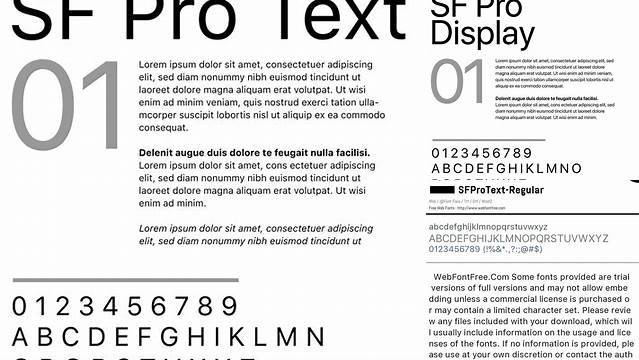
SF Pro Text Font: Free Download Guide
Why SF Pro Text is a Top Choice for Designers
Hey guys! Let's dive into why SF Pro Text has become a go-to font for so many designers and creatives out there. SF Pro Text isn't just any font; it's the system font for Apple's incredibly popular operating systems, including iOS, macOS, and watchOS. This means you've probably seen it countless times without even realizing it. Its clean, legible design is optimized for readability across a wide range of screen sizes and resolutions, making it a fantastic choice for digital interfaces. When we talk about free SF Pro Text font options, it's essential to understand its pedigree. Originally developed by Apple, it's known for its neutral yet friendly character, ensuring that content takes center stage without any typographic distractions. Whether you're crafting a mobile app, a website, or even a print document, SF Pro Text offers a versatile and professional aesthetic that's hard to beat. Its extensive family includes various weights and styles, allowing for nuanced typographic hierarchies. This adaptability is a huge plus for any project, big or small. Many designers appreciate its subtle details, like the open apertures and balanced letterforms, which contribute to its excellent legibility, even at smaller point sizes. If you're looking for a font that combines modern sensibilities with timeless clarity, SF Pro Text should definitely be on your radar. Exploring SF Pro Text dafont alternatives or looking for official sources will lead you to discover its true potential. The font's design philosophy centers around clarity and functionality, ensuring that your message is communicated effectively. It's a workhorse font that performs exceptionally well in almost any context, from body text to headings. The availability of different weights, such as light, regular, medium, bold, and black, provides designers with the flexibility needed to create visually appealing and organized layouts. This comprehensive family ensures that you can achieve a consistent typographic experience throughout your designs. For those keen on understanding typography's impact on user experience, SF Pro Text serves as a prime example of how thoughtful font design can enhance usability and aesthetic appeal. Its widespread use in the Apple ecosystem is a testament to its effectiveness and widespread adoption. So, when you're searching for that perfect, accessible, and stylish font, remember the power and versatility of SF Pro Text.
Understanding the 'SF Pro Text' Nuances
So, what makes SF Pro Text so special, and why do people specifically search for it, sometimes using terms like "dafont"? Well, it's a bit of a story. SF Pro Text is part of Apple's San Francisco (SF) font family, specifically designed for text. The other main member is SF Compact, which is optimized for smaller screens and tight spaces, like on the Apple Watch. SF Pro Text, on the other hand, is intended for larger sizes, typically above 19 points, ensuring excellent legibility and clarity in interfaces and documents. When you're looking for free SF Pro Text fonts, it's important to be aware of licensing. While Apple makes SF Pro Text available for developers to use in their apps on Apple platforms, distributing it freely elsewhere isn't always straightforward. This often leads people to search on sites like dafont, looking for what they perceive as free versions. However, many fonts found on unofficial sites might be unofficial releases, modified, or even outright imitations. It's always best to stick to official sources or reputable foundries when possible to ensure you're using legitimate and high-quality typefaces. Understanding these nuances helps you appreciate why people are searching for specific font names like SF Pro Text. They recognize its quality, its association with modern design, and its fantastic readability. It's a font that communicates professionalism and a clean aesthetic. The subtle differences between SF Pro Text and SF Compact highlight Apple's meticulous approach to typography, catering to different contexts and ensuring optimal viewing experiences. For designers, having access to a font family that offers such specific optimizations can be incredibly beneficial. It allows for greater control over the visual presentation of information, ensuring that text remains legible and appealing across various applications. When you download or use a font, understanding its intended purpose and licensing is crucial for avoiding legal issues and ensuring the integrity of your design work. Therefore, while the allure of finding a font like SF Pro Text on a free font site is understandable, it's always wise to verify the source and licensing. This ensures you're not only getting the genuine article but also respecting the original designers and their work. The search for SF Pro Text dafont often stems from a desire to replicate that clean, modern Apple aesthetic in non-Apple environments or personal projects where obtaining official licenses might be complex. It highlights the font's desirability and its impact on contemporary design trends.
Discovering 'SF Pro Text' Equivalents and Alternatives
Alright guys, so you're on the hunt for that clean, crisp look of SF Pro Text, but maybe you're running into licensing issues or just want to explore other options. It happens! Sometimes, finding the exact free SF Pro Text font you want legally can be a bit of a maze, especially if you're working outside the Apple ecosystem or on projects where official distribution isn't feasible. But don't sweat it! There are some absolutely stellar alternatives out there that capture that same modern, highly readable vibe. Think of fonts that prioritize clarity, have a slightly geometric feel, and offer a good range of weights for versatile use. One fantastic alternative that often comes up is Roboto. Developed by Google, Roboto is a neo-grotesque sans-serif that balances mechanical and geometric forms. It's incredibly versatile, works well on screens, and is available for free through Google Fonts. Another strong contender is Open Sans. This is a humanist sans-serif, meaning it has a slightly more open and friendly feel, but it's still super clean and professional. Like Roboto, it's a Google Font, so you get a massive family of weights and styles, all free to use. If you're leaning towards something with a bit more character but still maintaining that contemporary feel, Lato is a great option. It’s a sans-serif font that feels warm and stable, making it excellent for both headlines and body text. You can find it on Google Fonts too. For those who really dig the slightly technical, precise look, Montserrat could be your jam. Inspired by old posters and signs in the Montserrat neighborhood of Buenos Aires, it has a geometric foundation with a modern twist. It’s another freebie from Google Fonts. When you're searching for SF Pro Text dafont styles, you might be looking for that particular Apple polish. While these alternatives won't be identical clones, they offer similar design principles: excellent legibility, a broad spectrum of weights, and a modern, clean aesthetic suitable for UI design, web, and more. Many designers find that using a combination of these high-quality, free fonts can achieve a professional look without breaking the bank or encountering licensing headaches. Remember to check the specific licenses for each font, but most found on Google Fonts are very permissive. So, explore these options, experiment with different weights, and see which one best fits the vibe you're going for. You might just find a new favorite that perfectly complements your design projects! It's all about finding the right tool for the job, and thankfully, there are plenty of great, free options available if you know where to look.
The Evolution of System Fonts: SF Pro's Place
Let's chat about how fonts have evolved, especially the ones we see every day on our devices. SF Pro Text represents a significant milestone in the world of system fonts. Think back to the early days of digital typography – fonts were often clunky, hard to read on low-resolution screens, and limited in variety. Then came innovations like TrueType and OpenType, paving the way for more sophisticated designs. Apple, being a pioneer in personal computing, has always placed a strong emphasis on typography. Remember Lucida Grande on older Macs? Or Helvetica Neue becoming the default on iOS? Each system font aimed to reflect the era's design sensibilities and technological capabilities. SF Pro Text, launched in 2015 alongside the Apple Watch, was a deliberate move to create a unified, modern, and highly functional typeface family across all of Apple's platforms. It replaced Helvetica Neue as the primary UI font. Its design was meticulously crafted to perform exceptionally well at various sizes and resolutions, hence the distinction between SF Pro Text (for smaller, text-heavy scenarios) and SF Pro Display (for larger, more prominent headings). This attention to detail is what makes people seek out free SF Pro Text font versions or alternatives, even if they're not using Apple devices. They recognize the quality and the modern aesthetic it brings. The evolution from older, less optimized fonts to the highly engineered SF Pro family showcases a broader trend in digital design: the increasing importance of readability, scalability, and a clean, unobtrusive user experience. When you search for SF Pro Text dafont, you're tapping into this desire for cutting-edge, functional typography. The SF font family, including SF Pro Text, is a testament to how far system fonts have come – from basic legibility to sophisticated tools that enhance user interaction and brand identity. Its success lies in its technical precision married with a pleasing aesthetic, making it a benchmark for interface typography. It's not just a font; it's a key component of the user experience, designed to be seen everywhere from a tiny watch screen to a large iMac display, seamlessly adapting and maintaining its clarity. This adaptability and refined design are why it remains a highly sought-after typeface in the design community.
The Design Philosophy Behind SF Pro
Let's geek out for a second on the why behind SF Pro Text. Apple didn't just create a font; they engineered an experience. The design philosophy driving the SF Pro family is all about clarity, legibility, and adaptability. It's a typeface designed to be functional first and foremost, especially in the context of user interfaces where information needs to be communicated quickly and accurately. SF Pro Text specifically is tuned for smaller text sizes (under 19 points) where detail and crispness are paramount. Its counterpart, SF Pro Display, is optimized for larger sizes, offering slightly different proportions for maximum impact. What makes SF Pro so appealing? Its neutral yet friendly character. It doesn't shout for attention; instead, it lets your content shine. This is achieved through carefully balanced letterforms, open apertures (the openings in letters like 'c' or 'e'), and a consistent stroke weight that ensures readability even on lower-resolution screens or at a glance. The subtle details matter: the way the 'a' is constructed, the curve of the 's', the spacing between letters – all meticulously considered. This level of refinement is why designers often search for free SF Pro Text font options, trying to replicate that polished Apple feel in their own projects. They recognize the quality and the sophisticated design language it represents. When people search SF Pro Text dafont, they're often looking for that specific clean, modern, and highly functional aesthetic that SF Pro embodies. It's a typeface that feels both contemporary and timeless, designed to work seamlessly across a vast range of devices and contexts. The underlying principle is human-centered design: the font should serve the user, making their interaction with the device or application as intuitive and pleasant as possible. It’s a font that aims to disappear, allowing the message to take center stage, yet it does so with a distinct personality that contributes to Apple's overall brand identity. This thoughtful approach to typography is a cornerstone of Apple's product design, and SF Pro Text is its current flagship.
How SF Pro Text Enhances User Interfaces
Alright, let's talk about how SF Pro Text actually makes your digital life better, especially in apps and websites. When designers choose a font for a user interface (UI), it's not just about making things look pretty; it's about making them work. SF Pro Text is a superstar in this arena because it's specifically engineered for screen readability. Think about it: you're scrolling through Instagram, checking your email, or browsing a news site. You want the text to be instantly clear, easy to scan, and comfortable to read, even if you're squinting a bit in bright sunlight. That's where SF Pro Text shines. Its clean lines, balanced letterforms, and optimized spacing ensure that characters don't blur together, even at smaller sizes. This reduces eye strain and makes the entire experience more pleasant. This is a major reason why people hunt for free SF Pro Text font downloads or similar alternatives – they want that same level of polish and usability in their own digital creations. A well-chosen UI font like SF Pro Text contributes significantly to the overall user experience (UX). It helps establish a clear visual hierarchy, guiding the user's eye through the information. Headings stand out, body text is legible, and interactive elements are easily identifiable. When you see "SF Pro Text dafont" in search results, it often signifies a designer trying to achieve that crisp, intuitive Apple-like interface in their own work. The font's versatility across different weights (light, regular, bold, etc.) allows designers to create distinct typographic styles for different elements, improving navigation and comprehension. For example, using a bold weight for buttons or key calls-to-action ensures they grab attention. Conversely, a lighter weight for descriptive text keeps the interface from feeling cluttered. Ultimately, SF Pro Text enhances UIs by prioritizing the user's need for clear, accessible, and visually comfortable information delivery. It’s a font designed not just to be seen, but to be used effortlessly, making it a fundamental component of modern, user-centric design.
Comparing SF Pro Text to Other System Fonts
Let's put SF Pro Text head-to-head with some other fonts you might know, especially other system fonts. It helps to understand why SF Pro has gained such traction. Historically, system fonts were often chosen for technical reasons – they were widely available or rendered well on specific hardware. Think of Times New Roman on Windows PCs or Lucida Grande on older Macs. These were functional, but perhaps not always the most aesthetically pleasing or optimized for modern, high-resolution displays. When Apple introduced SF Pro Text, it marked a shift towards a more design-conscious and performance-driven approach. Compared to, say, the ubiquitous Arial or Helvetica, SF Pro Text offers a more contemporary feel and is specifically engineered for screen rendering across Apple's diverse hardware. Helvetica, while a classic, can sometimes feel a bit dated or lack the subtle refinements needed for optimal on-screen legibility at smaller sizes. Google's Roboto, often seen as an Android counterpart, shares SF Pro's goal of being a highly legible, versatile UI font. Roboto has a slightly more geometric structure, whereas SF Pro Text feels a bit more organic and refined, particularly in its finer details. Both are excellent choices, but they have distinct personalities. Finding a free SF Pro Text font is appealing because it offers that distinct Apple polish, which differs from Roboto's Google-centric vibe. What about older Apple fonts like Helvetica Neue? SF Pro Text generally offers better legibility at small sizes and a more modern aesthetic that aligns better with current design trends. It was designed to address limitations perceived in Helvetica Neue for UI use. So, when you search SF Pro Text dafont, you're essentially looking for a font that embodies the pinnacle of Apple's typographic engineering for everyday use – a blend of technical precision, aesthetic appeal, and superb screen performance. It stands out because it's not just a generic sans-serif; it's a carefully crafted system font designed to enhance the user experience across millions of devices. Its widespread adoption and the demand for its look highlight its success in this competitive landscape of system typefaces.
The Impact of SF Pro Text on Web Design
Hey web designers! Let's talk about how SF Pro Text has subtly, yet significantly, influenced the look and feel of the modern web. Even though it's primarily Apple's system font, its clean aesthetic and excellent legibility have made it a highly desirable typeface. When developers and designers can't use the official SF Pro Text (due to licensing for cross-platform use), they often look for similar fonts or try to replicate its characteristics. This has driven trends towards minimalist, highly readable sans-serif designs on the web. SF Pro Text embodies a certain 'Apple polish' – a sense of quality, clarity, and modern sophistication. This is exactly the vibe many websites aim for. Think about tech blogs, portfolio sites, and even e-commerce platforms; they often favor typefaces that are clean, unobtrusive, and render beautifully on all devices. The search for a free SF Pro Text font often stems from this desire to bring that specific aesthetic to a web project without incurring licensing costs. While using SF Pro Text directly on the web requires careful implementation (like using Apple's web font format or ensuring users have it installed), its influence is undeniable. Designers might choose alternatives like Roboto, Open Sans, or Inter, which share SF Pro's commitment to screen readability and a clean, contemporary look. These fonts provide a similar user experience – text that's easy on the eyes, even during extended reading sessions. The principles behind SF Pro Text – clarity at small sizes, balanced letterforms, and a professional yet approachable tone – are now standard expectations for many web interfaces. So, even if your website isn't technically using SF Pro Text, the design choices it inspired are likely present. When you see search terms like "SF Pro Text dafont," it reflects the font's aspirational quality in the web design world. It represents a benchmark for clean, effective, and modern typography that elevates the user's interaction with digital content. Its legacy is not just in the devices it inhabits but in the broader design trends it has helped to shape across the internet.
Exploring the 'SF Pro Display' vs 'SF Pro Text' Difference
Let's clear up a common point of confusion, guys: the difference between SF Pro Text and SF Pro Display. While both are part of Apple's San Francisco font family, they're actually designed with different use cases in mind, optimizing for specific sizes. Think of it like having different tools for different jobs. SF Pro Text is your go-to for smaller type sizes, typically below 19 points. When you're reading body copy in an app, browsing a website on your phone, or looking at text messages, you're likely seeing SF Pro Text. Its design is optimized for maximum legibility at these smaller dimensions. This means slightly tighter spacing, more defined letterforms, and features that prevent aliasing or blurriness on screen. On the other hand, SF Pro Display is intended for larger type sizes, generally 20 points and up. You'll see it used for headlines, large titles, or any text that needs to make a bold statement. SF Pro Display has slightly different proportions – often a bit more spacing between letters and perhaps more pronounced features – to ensure it looks clear and impactful when magnified. This distinction is why simply searching for a free SF Pro Text font might not give you the optimal result if you intend to use it for large headlines, and vice-versa. Apple carefully calibrated these two variants to ensure the best possible reading experience across their entire product line. So, when you encounter terms like "SF Pro Text dafont," remember that people might be seeking the general 'SF Pro' aesthetic, but understanding these nuances can help you choose the right variant (or a suitable alternative) for your specific design needs. If you need a font for general interface text, SF Pro Text is usually the choice. If you're designing prominent titles or logos, SF Pro Display might be more appropriate. This intelligent differentiation is a hallmark of Apple's typographic system, ensuring that text always looks its best, no matter the context or size.
Accessibility and SF Pro Text
Let's talk about something super important: accessibility. And how SF Pro Text plays a big role in making digital content usable for everyone. Accessibility in design means creating products and experiences that people with disabilities can use. When it comes to typography, this boils down to making text clear, readable, and easy to understand. SF Pro Text is fantastic in this regard. As Apple's UI font, it's been designed with accessibility as a core principle. Its highly legible letterforms, open apertures, and optimized spacing at smaller sizes mean that users with visual impairments, dyslexia, or other reading challenges can engage with content more easily. For instance, the distinct shapes of letters like 'I', 'l', and '1', or 'O' and '0', are carefully differentiated to avoid confusion. This attention to detail is crucial. When people search for a free SF Pro Text font, they're often drawn to its perceived clarity and modern aesthetic, which inherently supports better readability. This translates directly into improved accessibility. A user who struggles with dense or poorly spaced text will find SF Pro Text much more comfortable to read. This benefits everyone, not just those with diagnosed visual impairments. In a world where we're constantly bombarded with information on screens, a font that prioritizes readability reduces cognitive load and makes the experience more inclusive. Therefore, the design choices made in SF Pro Text – its clarity, its structure, its performance at various sizes – directly contribute to making technology more accessible. It's a prime example of how thoughtful typography isn't just about aesthetics; it's about ensuring that information is available and understandable to the widest possible audience. This focus on legibility makes SF Pro Text a benchmark for accessible interface design, proving that good design is inherently inclusive design. When you aim for clarity, you inherently improve accessibility for all users.
Font Pairing with SF Pro Text
So you've decided to use SF Pro Text, or perhaps a close alternative, in your design. Awesome choice! Now, how do you pair it effectively to make your whole design pop? That's the million-dollar question, right? SF Pro Text is a highly versatile, neutral sans-serif. Its strength lies in its clarity and modern feel. This means it plays well with a variety of other typefaces, but you need to choose companions wisely to maintain a cohesive and professional look. For body text, if SF Pro Text is your primary font, you might want to pair it with a serif font for contrast, especially in longer articles or print design. Think of a classic like Garamond, Merriweather, or even Lora. These serifs offer a traditional counterpoint to SF Pro's modern simplicity, creating a sophisticated typographic hierarchy. Ensure the serif you choose also has good legibility at body text sizes. For headings, you have a few options. You could stick within the SF Pro family and use SF Pro Display (if available and licensed appropriately) or a bolder weight of SF Pro Text itself. Alternatively, you could go for a contrasting sans-serif. Maybe something with a bit more personality, like Montserrat for a geometric feel, or Oswald for a condensed, impactful look. Just ensure it doesn't clash with SF Pro Text's clean lines. If you're looking for free SF Pro Text font alternatives, the same pairing principles apply. Pair Roboto with Merriweather, or Open Sans with Lora. The key is to create contrast while maintaining harmony. Avoid pairing SF Pro Text with another highly neutral, geometric sans-serif unless you're aiming for a very specific, minimalist aesthetic, as the result might be monotonous. The goal is usually to establish a clear visual distinction between different types of content (like headlines vs. body text) without creating chaos. Strong tip: When looking for SF Pro Text dafont options or similar free fonts, consider the font's overall character. Is it friendly? Technical? Formal? Choose a pairing that complements, rather than competes with, SF Pro Text's inherent clarity and modern sensibility. Experimentation is key, but always keep your project's goals and audience in mind.
The Future of System Fonts like SF Pro Text
What's next for typefaces like SF Pro Text? It's an exciting question, guys, because the way we interact with text on screens is constantly evolving. SF Pro Text represents a high point in current system font design – optimized for legibility, usability, and aesthetic appeal across a multitude of devices. But technology never stands still, right? We're seeing trends like variable fonts becoming more mainstream. Variable fonts allow a single font file to contain many variations (like weight, width, and slant), offering incredible flexibility for designers and potentially improving performance. We might see future system fonts built with variable font technology at their core. There's also a growing emphasis on color fonts and variable color within typefaces, which could lead to more dynamic and expressive interfaces. AI and machine learning are also starting to play a role in font generation and optimization, potentially leading to fonts that can adapt in real-time to user preferences or environmental conditions (like lighting). While the demand for free SF Pro Text font downloads indicates a desire for its current quality, the future likely holds even more sophisticated typographic tools. Apple, Google, and other tech giants will continue to innovate, pushing the boundaries of what system fonts can do. Expect future fonts to be even more adaptive, perhaps offering dynamic adjustments for different screen resolutions, user needs (like high contrast modes), or even contextual styling. The core principles of legibility and usability that SF Pro Text champions will undoubtedly remain crucial. However, the methods of achieving these goals will likely become more advanced. The quest for the perfect digital typeface is ongoing, and fonts like SF Pro Text are important stepping stones in that journey. They set a high bar for clarity and user experience, influencing the direction of typographic innovation for years to come. So, while SF Pro Text is current king, keep an eye on how technology continues to shape the letters we read every day.
When to Avoid Using SF Pro Text (and its Alternatives)
Okay, let's flip the script. While SF Pro Text is an amazing font, it's not always the perfect fit for every single project. Sometimes, you actually need to steer clear, even if you've found a free SF Pro Text font download. Reason 1: Licensing restrictions. As we've hammered home, if you need a font for a commercial project outside of Apple's intended ecosystem, the official SF Pro Text might be a legal minefield. Relying on unofficial downloads from places like dafont for commercial work is risky. Reason 2: Brand identity. SF Pro Text is Apple's font. Using it extensively might make your project feel too much like an Apple product, potentially diluting your unique brand identity. If you want your brand to stand out with a distinct personality, a more unique or custom typeface might be necessary. Reason 3: Specific aesthetic needs. SF Pro Text is a neutral, highly functional sans-serif. If your project calls for something with a lot of flair, a strong historical feel (like a classic serif for a vintage brand), or a highly decorative style, SF Pro Text will likely fall flat. Its strength is its subtlety; if you need boldness and overt character, look elsewhere. Reason 4: Technical limitations. While excellent on screens, if you're doing heavy-duty print design, especially for things like magazines or books that require very specific typographic control, you might find that professional print-focused typefaces offer more features and better performance. Alternatives and their pitfalls: Even when using alternatives like Roboto or Open Sans, consider if they truly fit. Are they too common, making your design blend in? Do they have the specific weights or styles you need? Sometimes, the lack of a specific characteristic in these widely available fonts can be a reason to look for something more specialized. The bottom line: SF Pro Text and its free-lookalikes are fantastic for UI, general digital text, and projects aiming for that clean, modern Apple aesthetic. But if licensing is a concern, brand distinctiveness is key, or your project demands a very specific stylistic or technical typographic treatment, it's time to explore other avenues. Knowing when not to use a font is just as important as knowing when to use it.
The "dafont" Experience: Free Fonts Galore!
Let's talk about dafont, the elephant in the room for many font searches, especially when terms like "SF Pro Text dafont" come up. This website is legendary in the design community, acting as a massive, easily accessible repository for thousands upon thousands of fonts. What's the big draw? Free fonts. For personal use, dafont is an absolute goldmine. You can find everything from quirky, hand-drawn scripts to classic serifs and modern sans-serifs. It’s the first place many beginner designers and hobbyists turn to when they need a font that looks good without costing anything. The user interface is straightforward: browse by category, check out the latest additions, or search by name. The reward of diving into dafont is the sheer variety and the potential to discover hidden gems. You might find a font that perfectly captures the vibe you're going for, saving you money and time. However, as we've touched upon, the experience isn't always straightforward, particularly with fonts like SF Pro Text. The caveat: Dafont hosts fonts submitted by individual creators. While many are legitimate and clearly state their licensing (usually for personal use only), the accuracy and legality of fonts mimicking popular typefaces can be questionable. You might download something labeled 'SF Pro Text' that is actually an unofficial remake, potentially with missing characters, incorrect kerning, or unclear commercial usage rights. This is the inherent risk of the dafont experience – amazing variety comes with the responsibility of vetting the font's quality and license. For SF Pro Text specifically, Apple's own distribution channels are the official and safest route for developers. Relying on dafont for it, or any commercial project, is a gamble. But for personal projects, exploring dafont can be a fun and rewarding way to experiment with different typographic styles and find unique looks without breaking the bank. Just remember to always read the descriptions and respect the creators' intended use.
Customization and Weights in SF Pro Text Family
One of the things that makes SF Pro Text such a powerful tool is its extensive family and the customization it offers. It’s not just a single font; it’s a whole system designed to cover a wide range of typographic needs. SF Pro Text itself comes in a variety of weights: Thin, Light, Regular, Medium, Semibold, Bold, Heavy, and Black. That’s a serious range, guys! This allows designers to create sophisticated typographic hierarchies within their interfaces and designs. You can use 'Light' for subtle captions, 'Regular' for main body text, and 'Bold' or 'Heavy' for important headings or calls to action, all while maintaining a consistent typographic voice. Beyond just weights, the SF Pro family includes stylistic alternates and other OpenType features that add subtle refinements. While finding free SF Pro Text font versions might mean you don't get the full suite of these advanced features, the core weights are often present. The real power comes when you have access to the full family, as intended by Apple. This allows for nuanced adjustments that enhance both aesthetics and readability. For instance, you might use a slightly heavier weight for text on a dark background to improve contrast. Or perhaps use a lighter weight for secondary information to make it recede visually. The availability of these multiple weights and styles within the SF Pro Text family is a testament to its design as a comprehensive system rather than just a single typeface. It empowers designers with the control needed to craft polished, professional results. When people search for SF Pro Text dafont or similar free options, they're often trying to access this range of weights to achieve a similar level of design flexibility. Even if you're using an alternative, looking for a font family with a similar breadth of weights (like Roboto or Open Sans) is key to achieving that professional polish and typographic control.
The Psychology of Fonts: SF Pro Text's Impact
Ever wonder why certain fonts just feel right? It’s not just about looks; it’s about psychology. SF Pro Text, with its clean, straightforward design, taps into some interesting psychological responses. Clarity and Trust: Because SF Pro Text is highly legible and associated with Apple's polished ecosystem, it often subconsciously signals trustworthiness and reliability. When users see clean, well-rendered text, it can create a sense of professionalism and competence for the brand or app using it. This is a huge win for any designer. Neutrality and Focus: SF Pro Text is intentionally neutral. It doesn't have strong eccentricities that might distract the reader. This neutrality allows users to focus on the content itself, reducing cognitive load. Psychologically, this makes for a more comfortable and efficient user experience. People feel less overwhelmed when the interface 'gets out of the way'. Modernity and Innovation: As a relatively new system font from a leading tech company, SF Pro Text is associated with modernity and forward-thinking design. Using it, or fonts that emulate its style (which is why people search for free SF Pro Text font options), can lend a project a contemporary edge. Friendliness: Despite its neutrality, the slightly rounded terminals and open letterforms give SF Pro Text a subtle friendliness. It's approachable without being casual. This balance is key for engaging users without appearing unprofessional. Think about how jarring a super-formal or overly quirky font might feel in a daily-use app. SF Pro Text hits a sweet spot. The SF Pro Text dafont searches often reflect a desire to harness these psychological effects – the trust, the focus, the modern feel – in various projects. Designers understand that the choice of typeface is a powerful, albeit often subconscious, communication tool. By choosing a font like SF Pro Text, or one that captures its essence, you're influencing how users perceive your content and your brand. It’s about making them feel comfortable, informed, and confident.
SourceForge and Font Repositories
While SourceForge is primarily known as a hub for open-source software development, it's worth noting that font repositories and related resources can sometimes be found within these broader developer communities. However, for specific, high-quality typefaces like SF Pro Text, SourceForge is unlikely to be the primary or official source. When developers look for fonts, they typically utilize specialized font repositories like Google Fonts, Adobe Fonts, or directly from type foundries. The search for a free SF Pro Text font often leads users to more consumer-focused font sites rather than large-scale software development platforms. If you were to find font files on SourceForge, they would likely be part of an open-source project related to typography or graphics, rather than a direct download of a popular commercial or system font. It's crucial to distinguish between general software repositories and dedicated font platforms. Apple's developer portal remains the official source for SF Pro Text. Sites like dafont, while popular for free personal-use fonts, operate under different models. Google Fonts offers a vast library of high-quality, commercially usable open-source fonts. When considering where to get fonts, always prioritize official channels or reputable, well-managed font libraries. Relying on less common or non-specialized repositories can increase the risk of downloading outdated, modified, or improperly licensed files. For SF Pro Text, the path is clear: Apple Developer resources. For other needs, stick to trusted font platforms. The ease of finding fonts online can be a double-edged sword; diligence is always key to ensuring you have the right, legally sound, and high-quality typefaces for your projects.
The Community Around Free Font Downloads
Hey, the world of fonts is surprisingly social! When you dive into downloading free fonts, you're joining a huge, vibrant community. Think about sites like dafont, Google Fonts, and countless others. They aren't just warehouses; they're hubs where designers, developers, and hobbyists connect. The 'Why': People seek free fonts for myriad reasons – budget constraints (especially for indie devs or students), experimenting with new styles, or contributing to open-source projects. This shared need fosters a community focused on accessibility and creativity. Sharing and Discovery: Forums, blogs, and social media are filled with discussions about new font releases, hidden gems, and tips on using typefaces effectively. When someone searches for SF Pro Text dafont, they’re often looking for community recommendations or discussions about similar-looking fonts. People share their favorite free font pairings, critique new releases, and help each other navigate licensing complexities. Open Source Ethos: Many free fonts are distributed under open-source licenses (like the SIL Open Font License used by Google Fonts). This promotes collaboration and allows users to not only use but also modify and redistribute the fonts, further strengthening the community aspect. Challenges: Of course, the community also grapples with issues like font piracy and the misuse of personal-use-only fonts. Discussions often revolve around ethical usage and respecting creators' rights. The search for SF Pro Text itself highlights this; while officially distributed by Apple, its popularity fuels a widespread desire for accessible versions, creating a dynamic around its look and feel in the broader font community. Support and Resources: Online communities provide invaluable support. Whether it's troubleshooting a font file, finding a specific style, or understanding licensing, there’s almost always someone willing to help. This collective knowledge base is a massive asset for anyone working with typography. So, next time you download a free font, remember you're part of a global network of creatives passionate about making the world a more visually interesting place, one letter at a time.
SF Pro Text: Beyond Apple Devices
So, you love the look of SF Pro Text, but you're not exclusively on Apple devices? Totally understandable, guys. That clean, modern aesthetic is super appealing. While Apple designs SF Pro Text to be the font for its ecosystem, its influence and the desire to use it extend far beyond. The Challenge: The primary hurdle is licensing. Apple provides SF Pro Text for developers within its platforms. Using it freely on Android, Windows, or the web outside of those specific contexts often requires navigating complex licensing agreements or might not be permitted at all. This is why the search for a free SF Pro Text font is so pervasive – people want that look on platforms where it's not natively available. Emulating the Style: When direct use is complicated, designers often turn to alternatives that capture the essence of SF Pro Text. Fonts like Roboto, Inter, or Open Sans are frequently chosen because they share similar characteristics: excellent screen readability, a balanced neutral sans-serif design, and a range of weights suitable for UI. They offer a comparable user experience, even if they aren't identical. Web Font Implementation: For web developers, using SF Pro Text directly can be achieved through @font-face CSS rules, but it requires obtaining the font files legally and ensuring they are optimized for the web. Apple does offer some guidance on this for web use, but it's crucial to adhere strictly to their terms. The 'dafont' Quest: This is where searches like "SF Pro Text dafont" come into play. Users might find unofficial versions or fonts that bear a strong resemblance. While tempting for personal projects, caution is advised due to licensing and quality concerns. The Takeaway: SF Pro Text's design is so effective that its aesthetic has transcended its original platform. Its principles of clarity, neutrality, and screen optimization are highly sought after. While using it directly outside Apple's ecosystem can be tricky, its impact is undeniable. The widespread appreciation for SF Pro Text has spurred the creation and popularization of many excellent alternative fonts that bring a similar level of polish and readability to all sorts of digital projects, regardless of the device.
Understanding Font Formats (OTF, TTF, WOFF)
Let's break down some of the tech behind the fonts you download, especially when you're hunting for something like a free SF Pro Text font. Knowing the different font formats can save you headaches and ensure compatibility. OTF (OpenType Font): This is a more modern and versatile format, developed jointly by Adobe and Microsoft. OTF files can contain more features than older formats, such as advanced typographic controls like ligatures, stylistic alternates, fractions, and extended character sets. Many professional fonts, including potentially official versions of SF Pro Text, come in OTF format. They generally work well across both Mac and Windows. TTF (TrueType Font): This is an older, widely supported format, originally developed by Apple and later expanded with Microsoft. TTF files are very common and work reliably on most systems. While they support basic typographic features, they might not have the same advanced capabilities as OTF. Many free fonts found on sites like dafont might be in TTF format. WOFF (Web Open Font Format): This format is specifically designed for web use. WOFF files are compressed, making them smaller and faster to load in web browsers. This is crucial for website performance. Modern web design heavily relies on WOFF and WOFF2 (an even more compressed version) to embed custom fonts like SF Pro Text (if licensed for web use) or its alternatives. Why it matters: When you download fonts, especially from less official sources when searching for "SF Pro Text dafont", you might encounter different formats. Understanding them helps you: * Ensure Compatibility: Does your operating system or design software support the format? (Most modern ones support OTF and TTF.) * Optimize for Web: If you're designing a website, you'll need WOFF/WOFF2. * Access Features: OTF often offers the richest typographic features. While SF Pro Text's core functionality is its clean design, knowing the format ensures you're getting a complete and usable file. Always check the file types provided, especially when dealing with official downloads versus free finds. For official SF Pro Text, Apple usually provides specific formats tailored for their platforms or web use according to their licensing.
The Rise of UI-Centric Typefaces
We're living in a digital-first world, guys, and that means the fonts we use in user interfaces (UIs) are more important than ever. SF Pro Text is a prime example of a UI-centric typeface – its entire design philosophy is built around enhancing the user experience on screens. Before the widespread adoption of smartphones and tablets, fonts like Times New Roman or Arial were common defaults, often designed with print in mind. But screens have different demands: varying resolutions, different lighting conditions, and the need for instant legibility. UI-centric fonts like SF Pro Text are engineered to meet these demands. They prioritize clarity at small sizes, offer a broad range of weights for visual hierarchy, and possess a clean, unobtrusive aesthetic that doesn't distract from the content. This focus on usability is why the search for free SF Pro Text font alternatives is so popular. Designers want to bring that same level of polish and readability to their own apps, websites, and digital products. Think about fonts like Google's Roboto, Microsoft's Segoe UI, or Apple's own SF Pro family. They are all meticulously crafted for digital environments. They aim for that perfect balance between a distinct personality and the ability to blend into the background, letting the information take center stage. The rise of UI-centric typefaces signifies a mature approach to digital design, where typography is not just decoration but a fundamental component of usability and user satisfaction. When you see terms like "SF Pro Text dafont", it reflects the massive demand for typefaces that excel in this specific, demanding context. These fonts are the workhorses of the digital age, quietly ensuring that our interactions with technology are as smooth and clear as possible. Their design is driven by function, but their success hinges on achieving that function with style.
Conclusion: Embracing SF Pro Text and Its Kin
So, there you have it, folks! We've journeyed through the world of SF Pro Text, exploring its origins, its design brilliance, and the reasons behind its popularity. Whether you're captivated by its clean lines, its exceptional legibility, or its association with polished tech, it's clear why SF Pro Text is a standout typeface. The Takeaway: For those within the Apple ecosystem or developing for its platforms, the official SF Pro fonts are readily available and the best way to go. They offer the authentic experience as intended by Apple. Exploring Alternatives: If you're outside that sphere, or seeking free SF Pro Text font options for personal projects, remember the excellent alternatives we discussed – Roboto, Open Sans, Lato, Inter, and others. These fonts capture the spirit of SF Pro Text, offering superb readability and modern aesthetics with clear, permissive licenses, often available via Google Fonts. Navigating Free Font Sites: While sites like dafont offer vast variety, exercise caution. Always verify licensing and be aware that unofficial versions might lack quality or legal standing, especially for commercial use. The search for "SF Pro Text dafont" highlights the desire for this aesthetic, but safety and legality should be top priorities. Final Thoughts: SF Pro Text and its kin represent the best of modern digital typography – functional, beautiful, and user-focused. They set a high standard for clarity and design. Embrace the principles they embody: prioritize readability, choose fonts that suit your project's context, and always be mindful of licensing. Whether you're using the official SF Pro, a top-tier alternative, or exploring the vast world of free fonts, the key is to make informed choices that enhance your design and respect the craft. Happy designing, everyone!